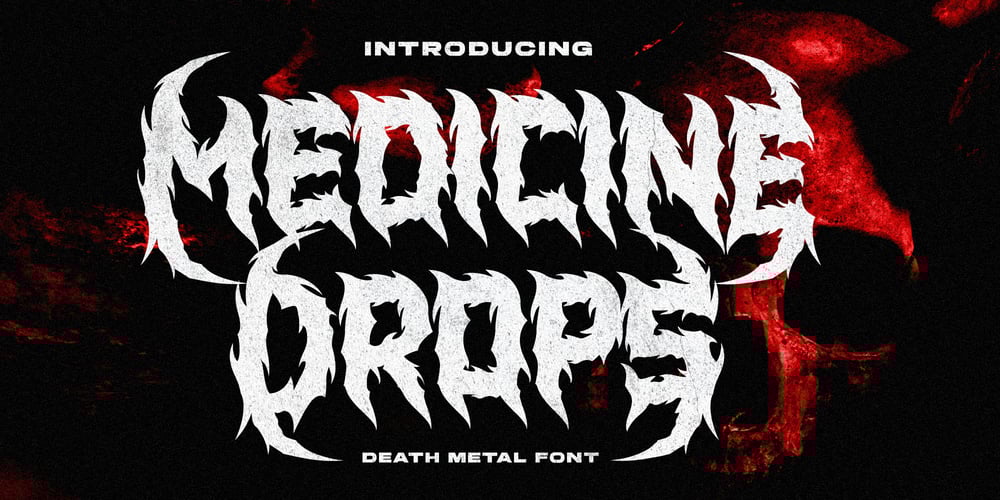
Medicine Drops Font Family was designed by Mulia Yanto and published by Multype Studio. Medicine Drops contains 1 styles and family package options. Medicine Drops is a font with a death metal theme. Be an alternative to make logos, merch, or anything with the nuances of death metal music. This font perfect for logotype death metal band, logotype death metal brand, product, merchandise death metal band, death metal band covers, rock events, rock posters, rock magazine covers, branding, product design, labels and other creative project.What’s Included : Standard glyphs Works on PC / Mac Simple installations Accessible in the Adobe Illustrator, Adobe Photoshop, Adobe InDesign, even work on Microsoft Word PUA Encoded Characters, Fully accessible without additional design software. Multilingual support Thank you for your purchase! Hope you enjoy with our font!